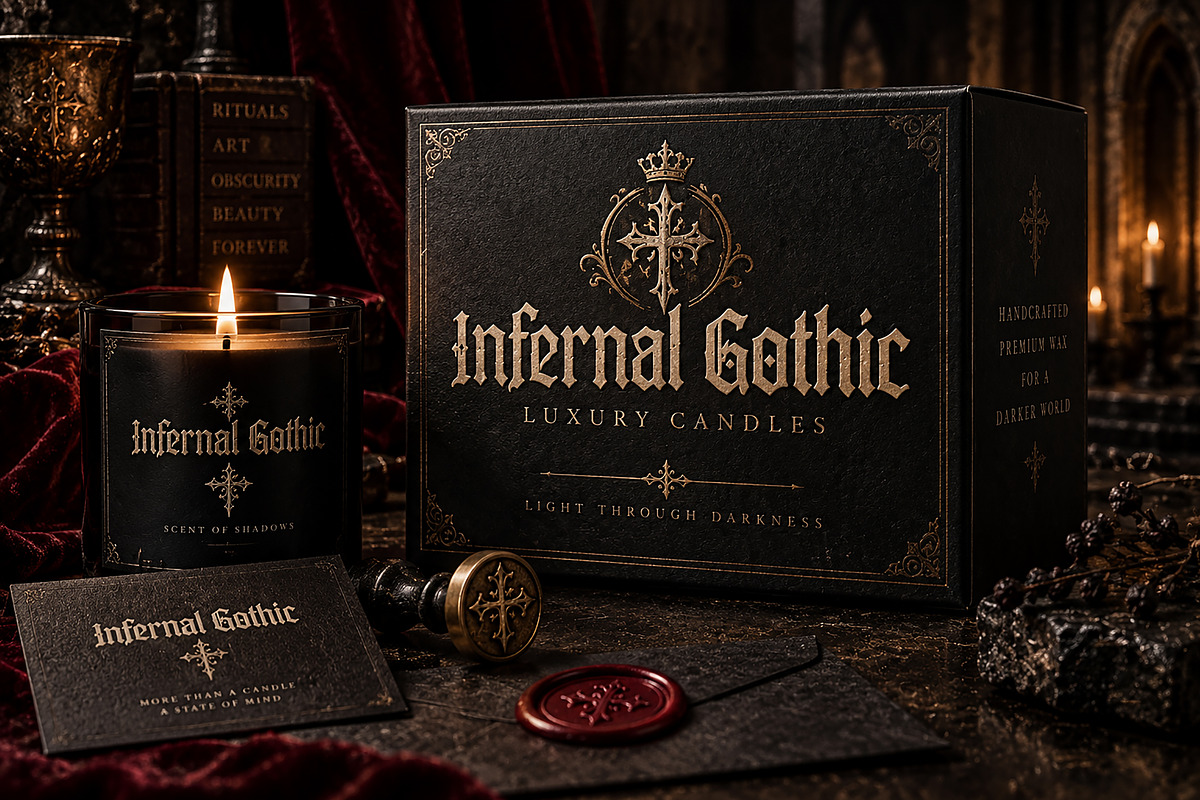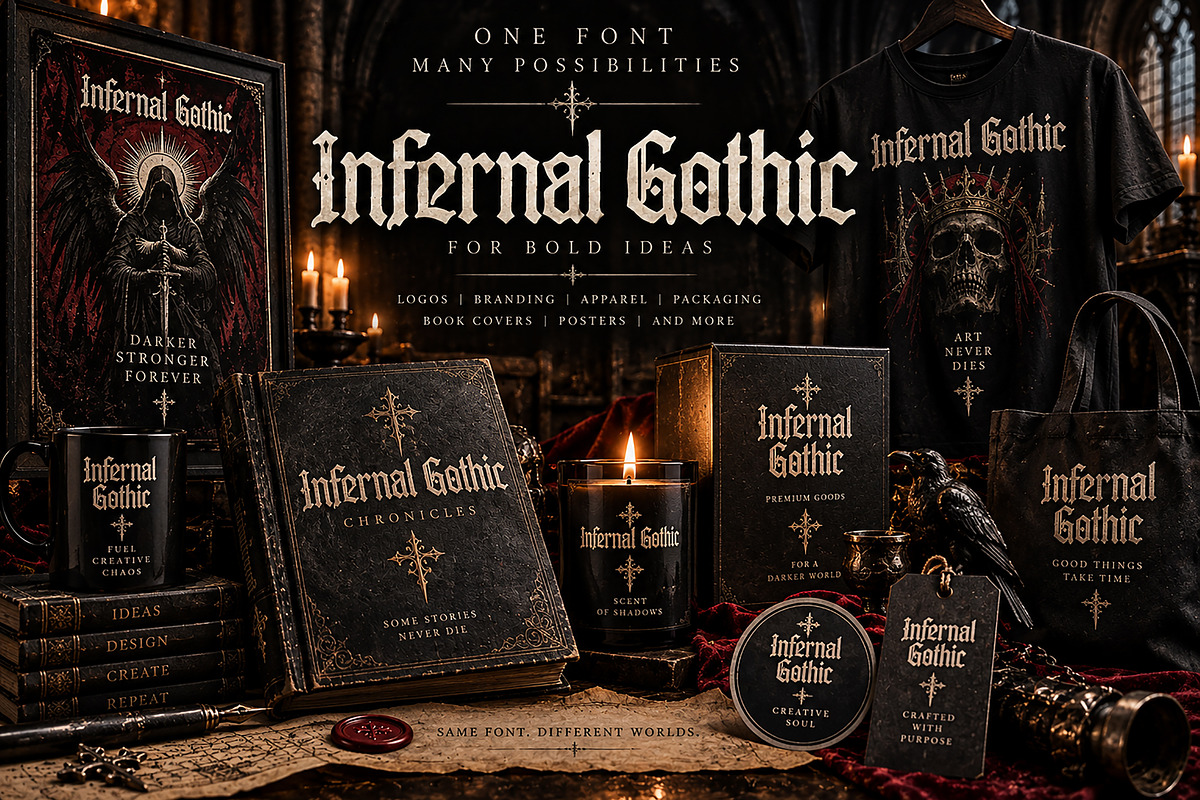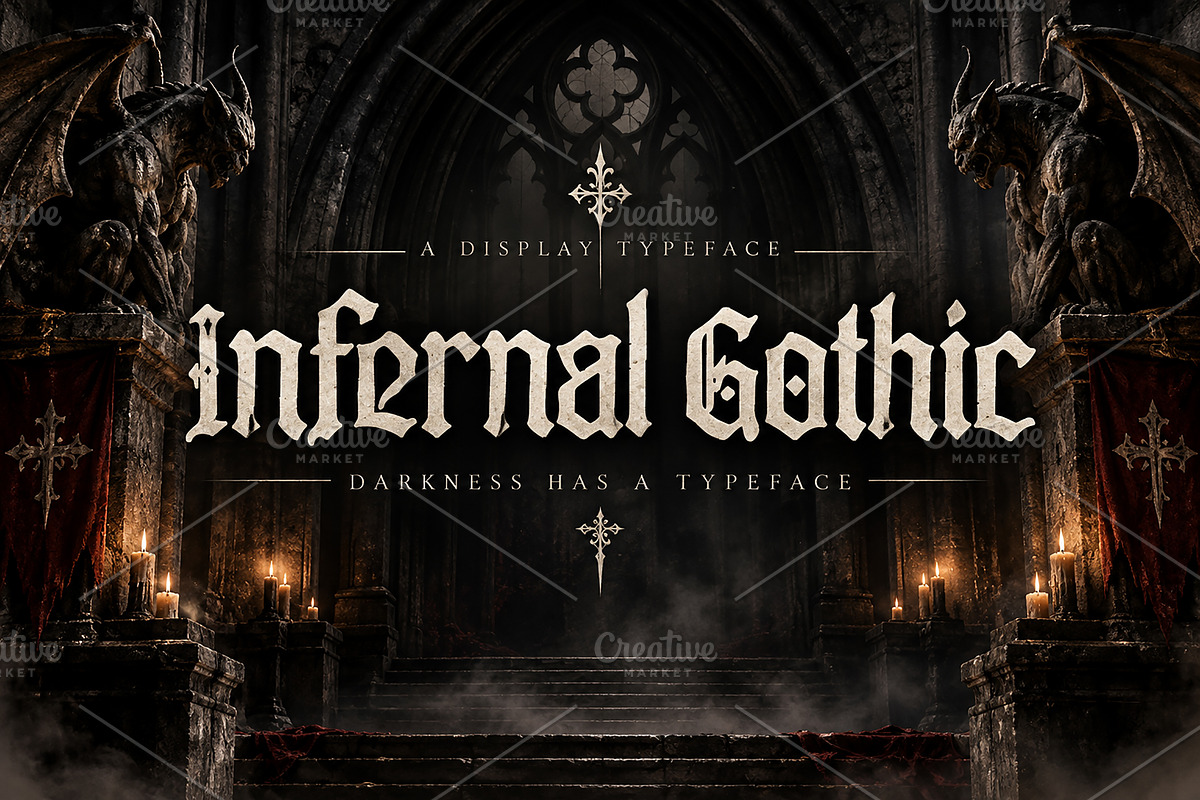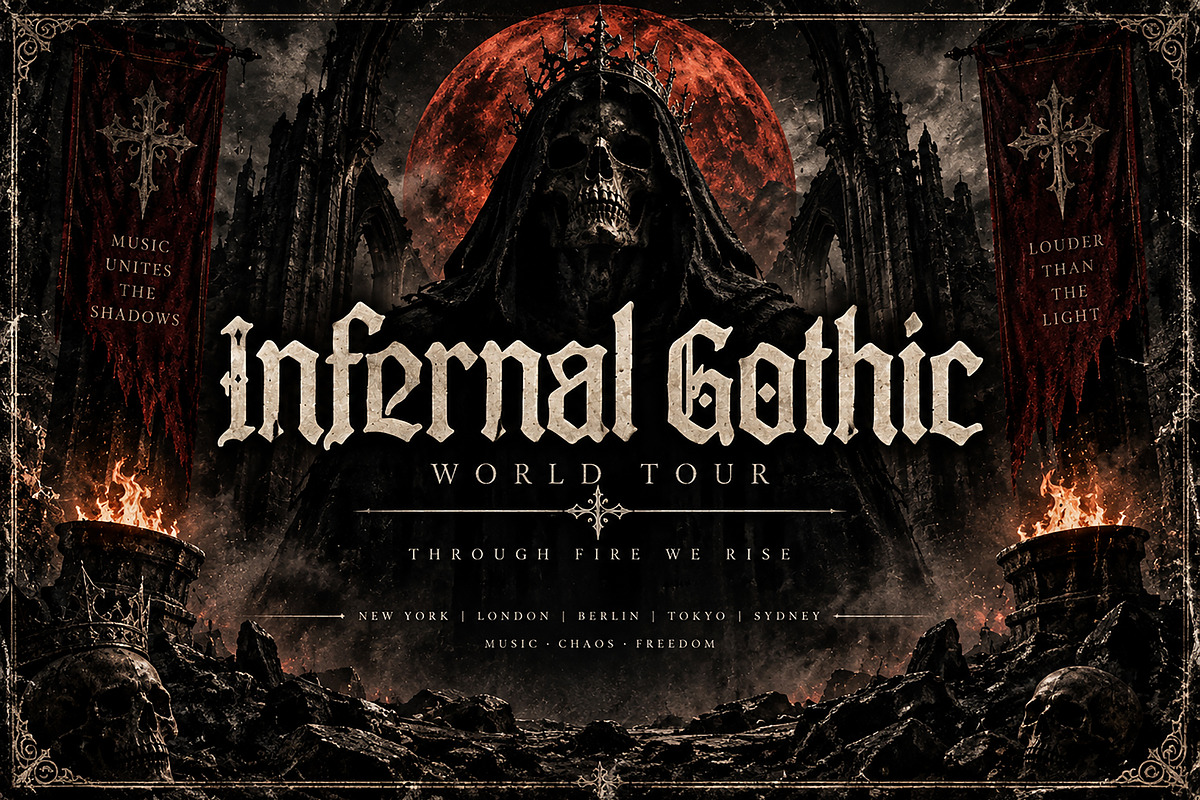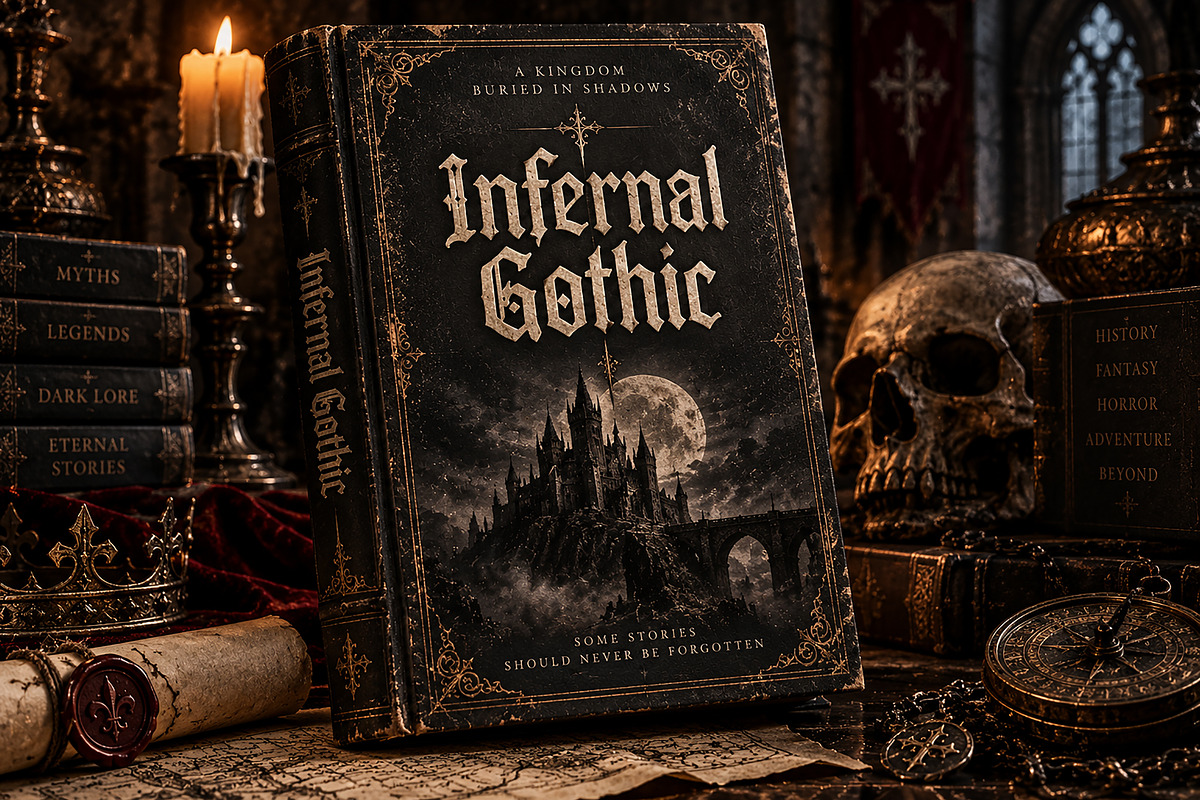
Infernal Gothic
Infernal Gothic — Dark Blackletter Display Font
Infernal Gothic is a bold and atmospheric Blackletter display typeface inspired by medieval Gothic lettering, dark fantasy, ancient manuscripts, and underground culture. Its sharp, dramatic forms and distinctive blackletter character make it an excellent choice for designs that need a powerful, mysterious, and unforgettable visual identity.
Designed to make a strong impact at large sizes, Infernal Gothic works beautifully for branding, logos, posters, album artwork, book covers, apparel, packaging, merchandise, labels, invitations, and other creative projects where a dark and striking typographic style is needed.
Its medieval-inspired personality gives your designs an authentic Gothic atmosphere while maintaining a strong display presence—perfect for designers looking to create bold and memorable artwork.
Gothic & Dark Branding
Band & Music Artwork
Metal & Rock Posters
Album Covers
Book & Novel Covers
Fantasy & Horror Designs
T-Shirt & Apparel Graphics
Packaging & Product Labels
Stickers & Merchandise
Posters & Flyers
Medieval & Historical Projects
Dark Luxury Branding
Editorial Design
Font Details
Font Name: Infernal Gothic
Style: Gothic / Blackletter / Medieval / Display
Font Type: Display Typeface
Bring a darker, stronger, and more dramatic personality to your next creative project with Infernal Gothic.